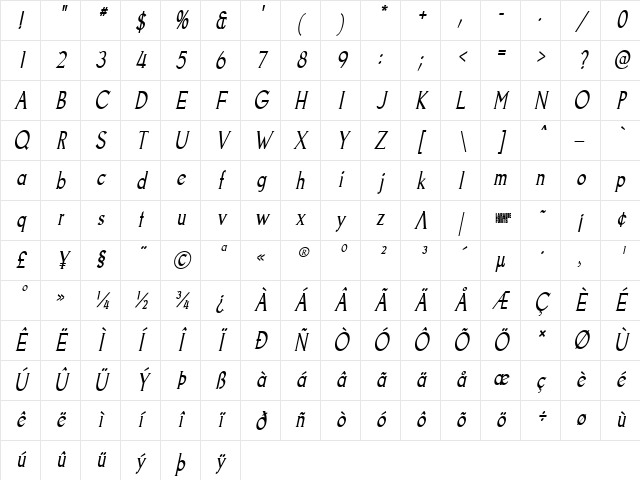
Goodfish Italic Free Font
Goodfish Italic
Design Context for Goodfish
Goodfish is a composed and adaptable typeface that performs quietly and consistently across a wide range of design contexts. The slanted form adds forward momentum and visual energy.
Pro Tip: Use Goodfish for emphasis, pull quotes, and subheadings where its slanted energy can add rhythm to the layout.